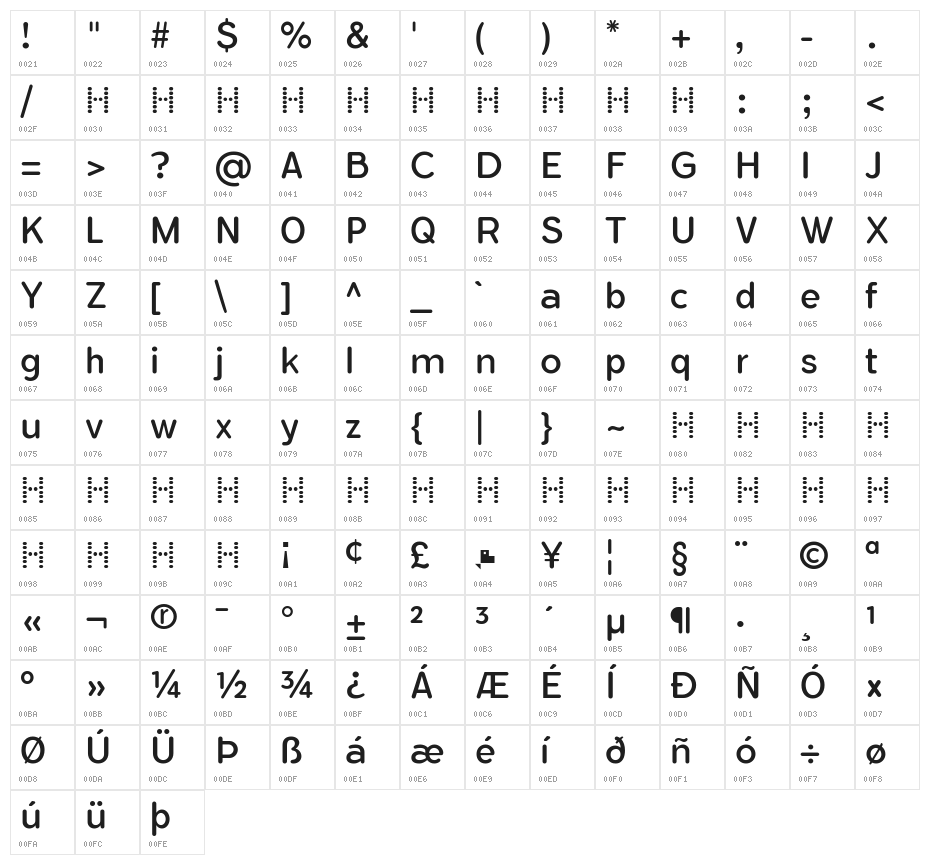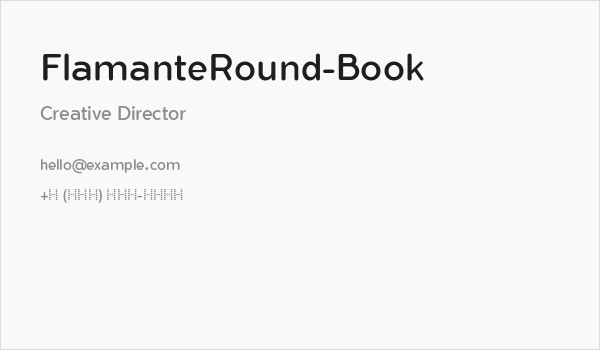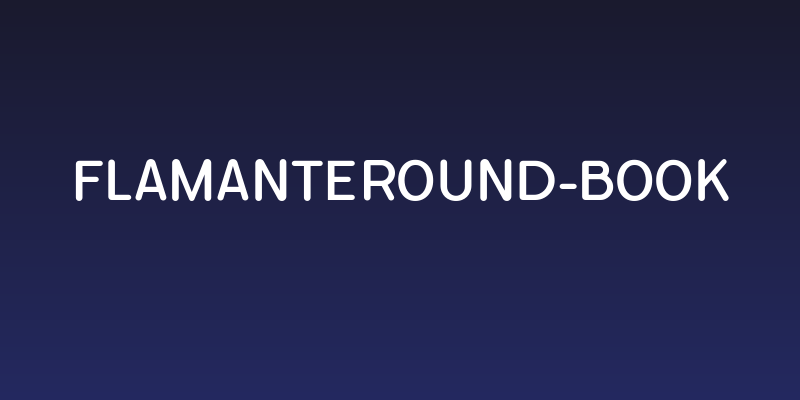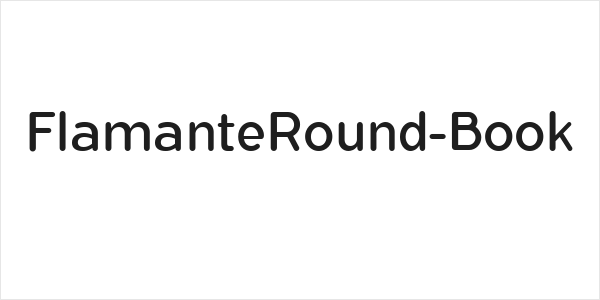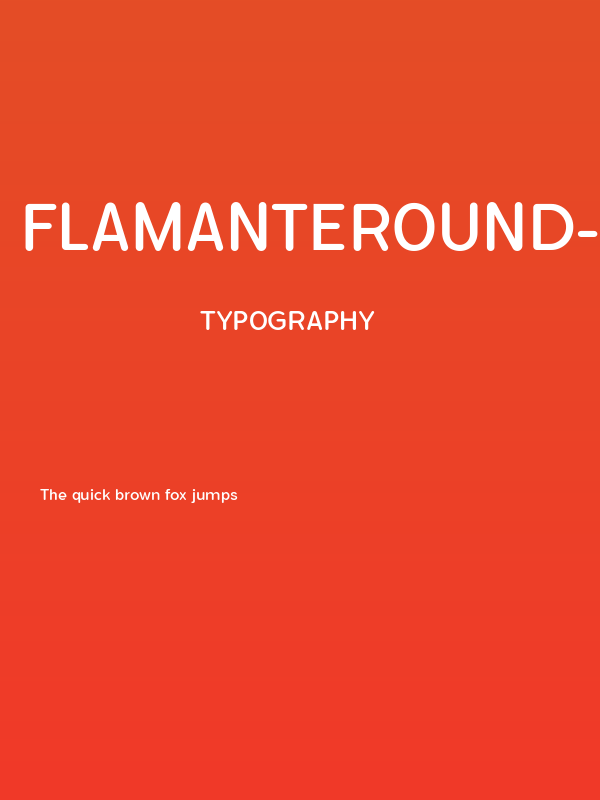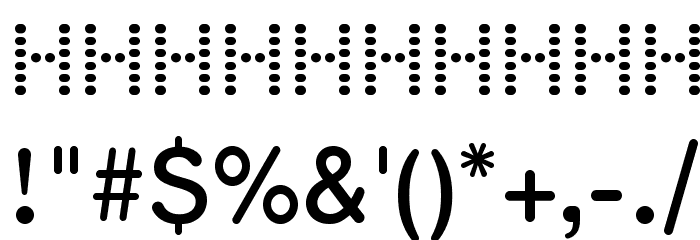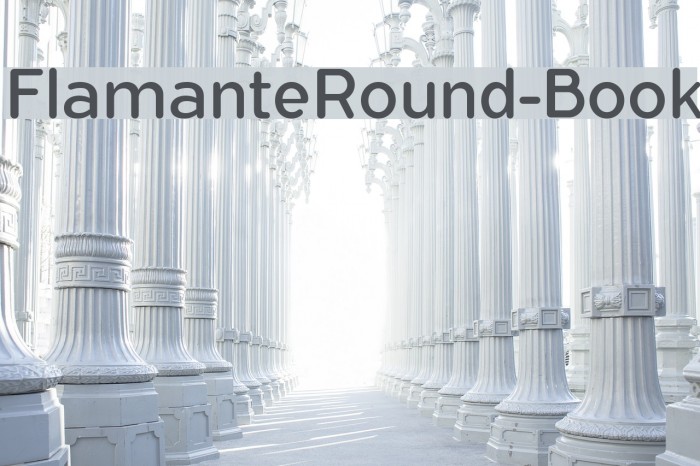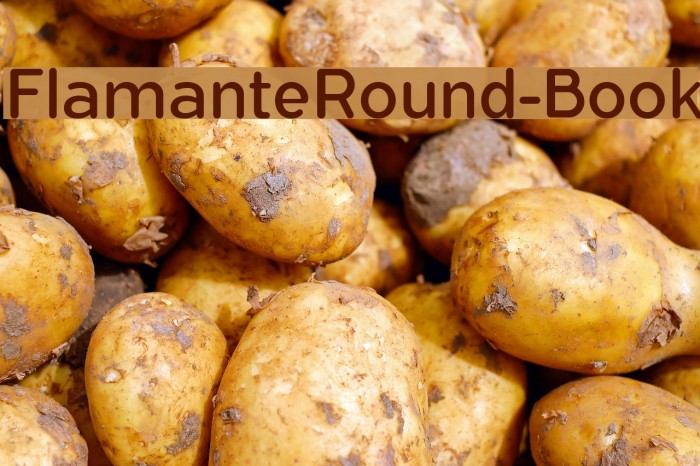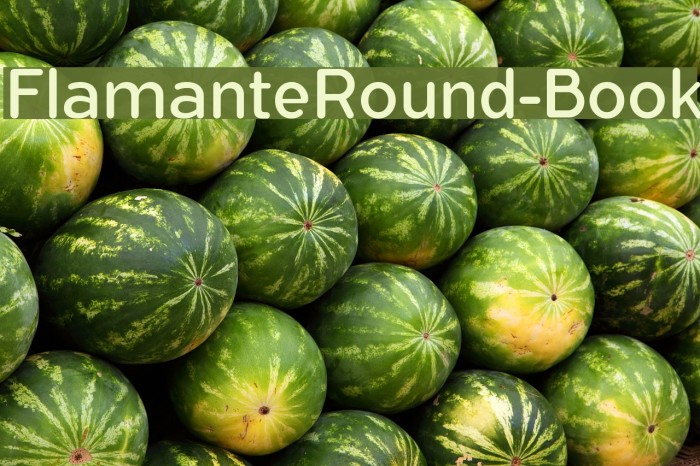
FlamanteRound-Book Font
FlamanteRound-Book Description
This font features a clean, rounded sans-serif style that exudes a modern and friendly appearance. The characters are well-proportioned with smooth curves and consistent stroke widths, giving it a harmonious and approachable look. The uppercase and lowercase letters maintain a uniformity that enhances readability, while the numerals and special characters are designed with the same rounded aesthetic, ensuring a cohesive visual experience. The overall design is versatile, making it suitable for a variety of applications where clarity and a contemporary feel are desired.
| Proposed Projects | Ideal for branding, web design, advertising, and any project requiring a modern and approachable typeface. |